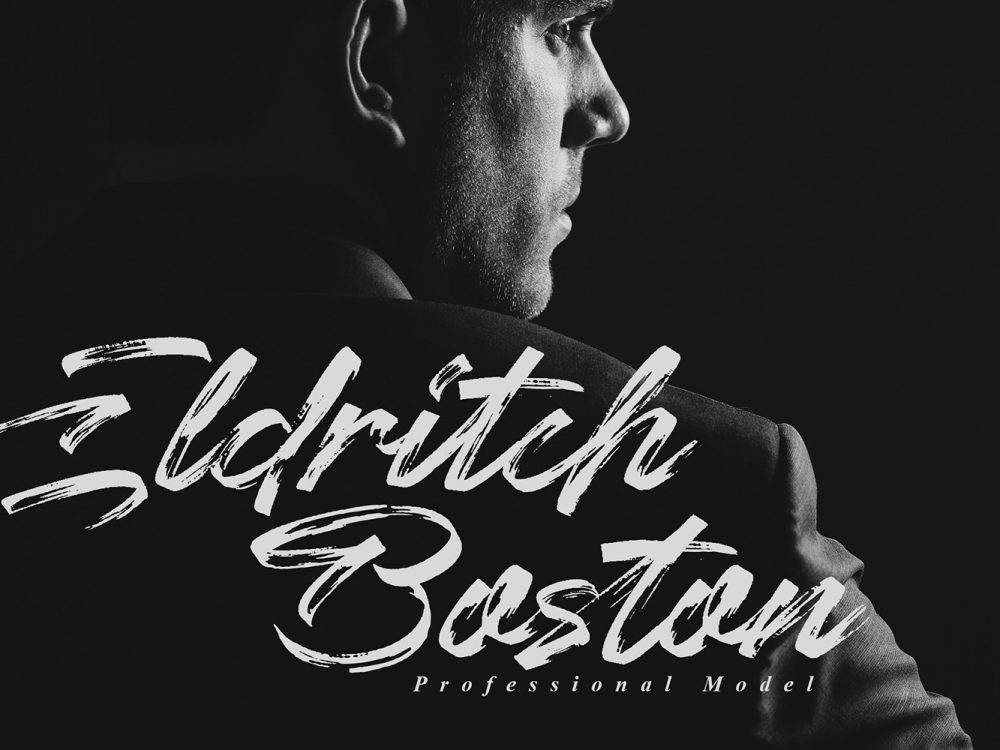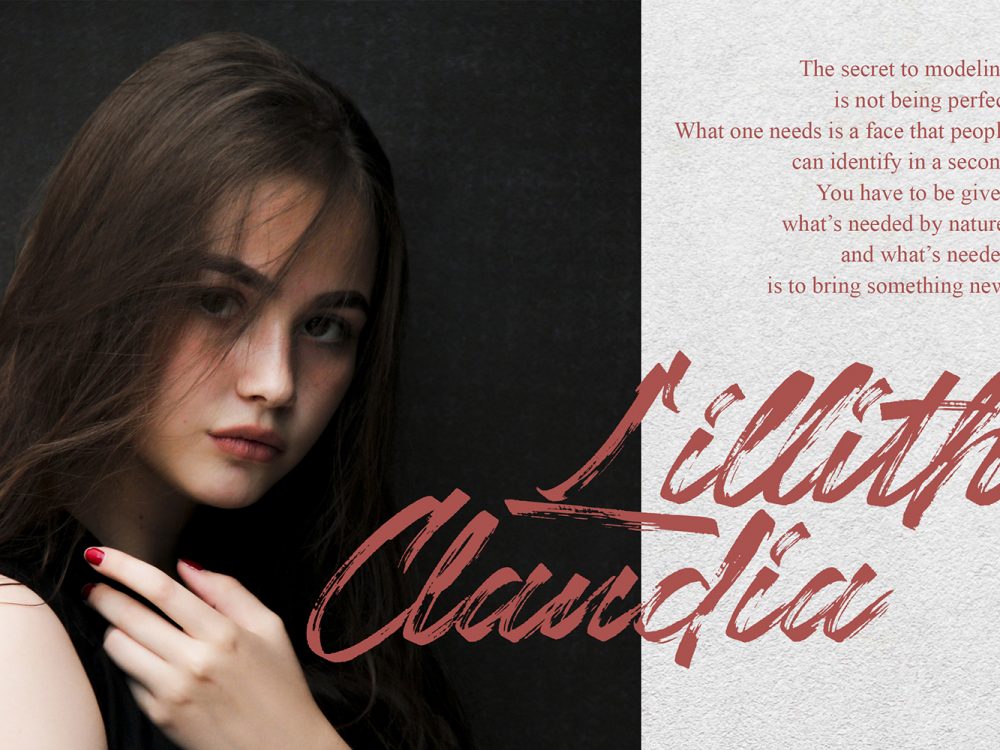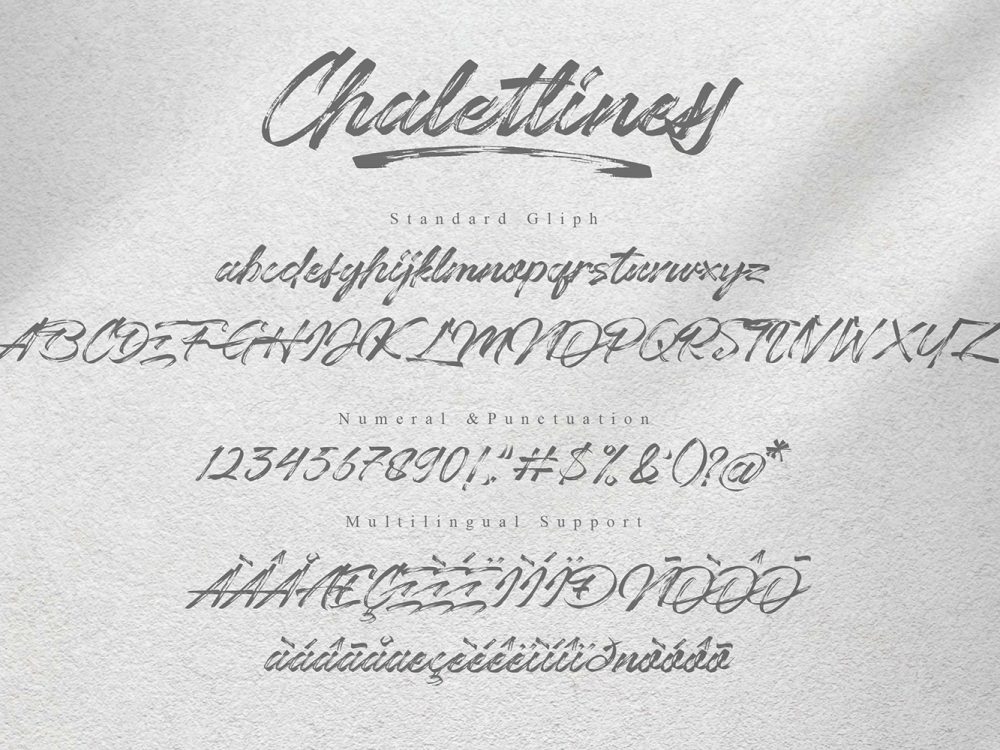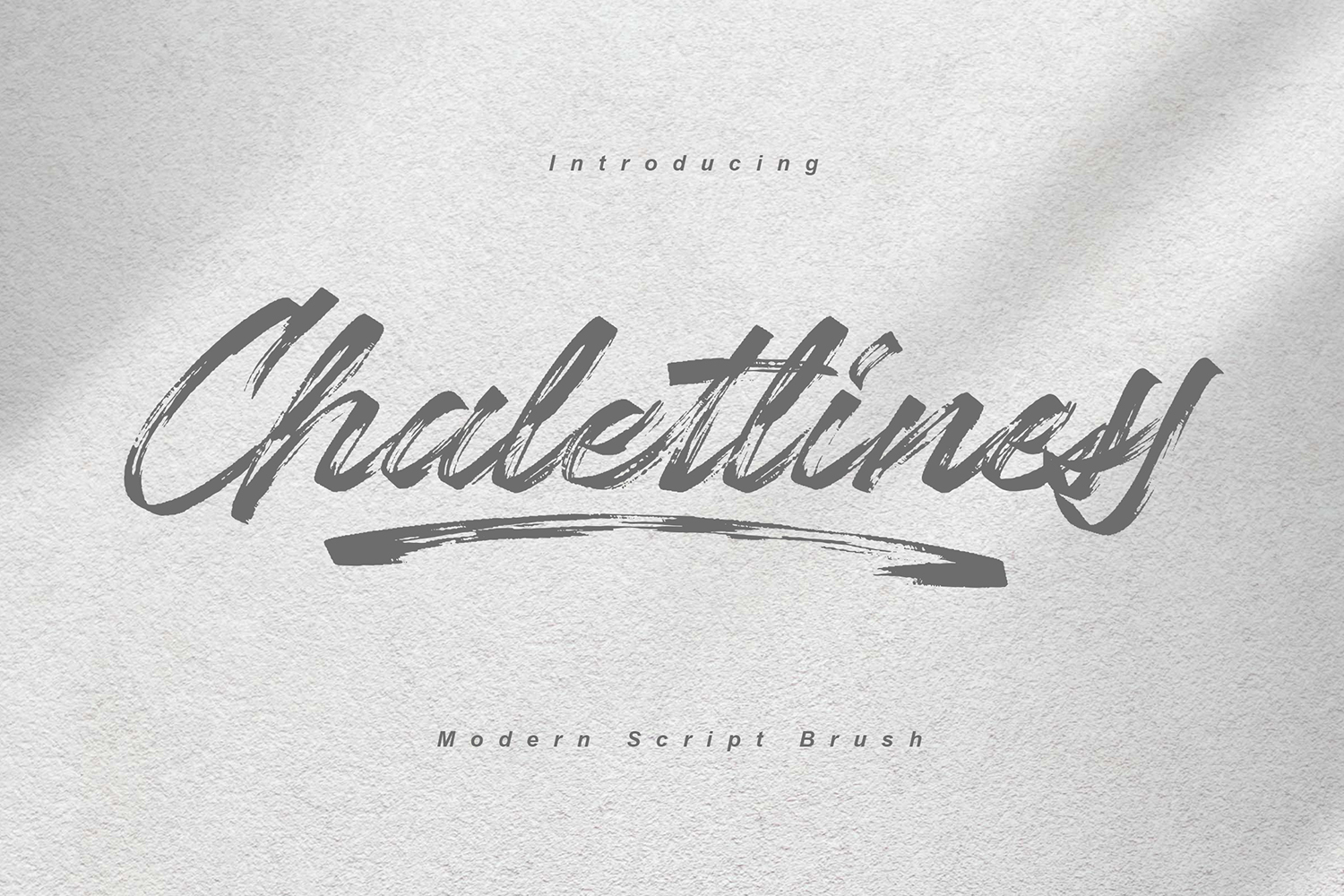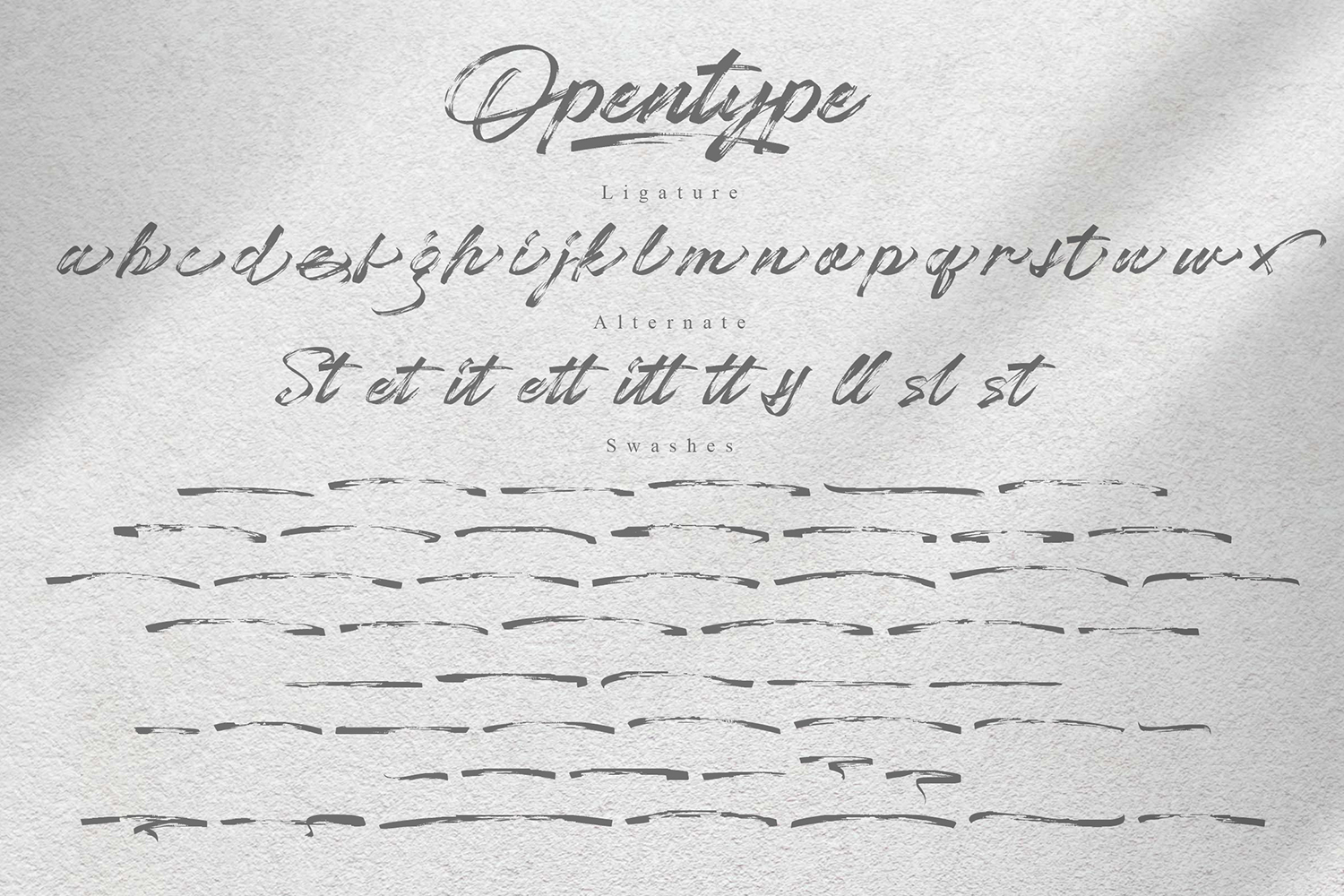
Chaletliness Free Font
Chaletliness Free Font is an interesting beautiful handwritten font that simulates detailed brush writing and is very suitable for creating various design projects that require a scripted font. These can be posters, invitations, cards, branding, flyer prints, and more. If you wish to access more features and use them for commercial work please buy the full version.
Author: Madhaline Studio